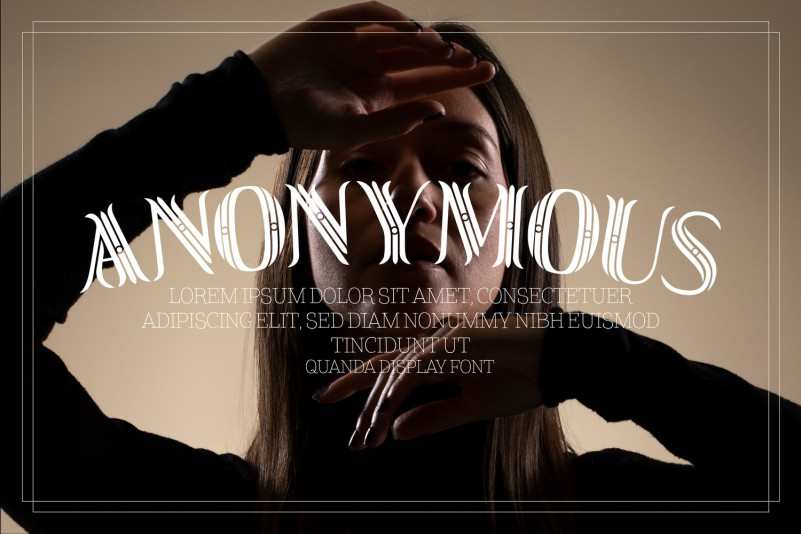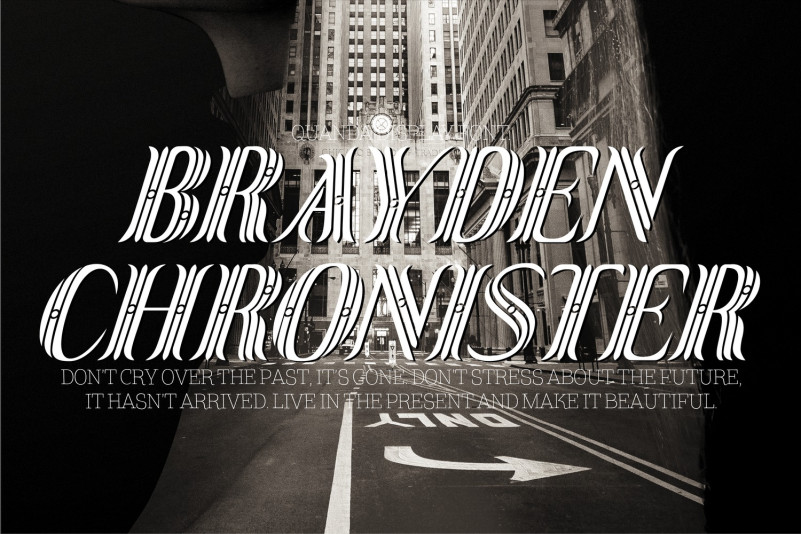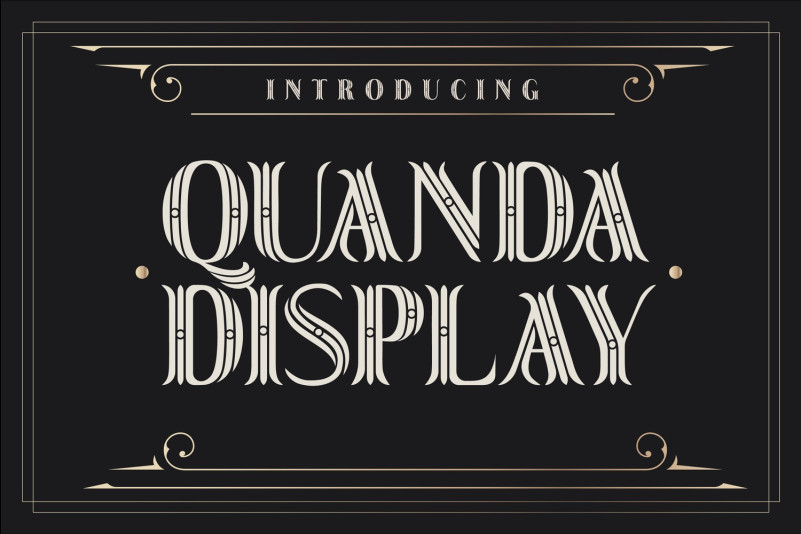
Quanda Display Font
Quanda Display Font is a unique serif decorative display font. The main keywords that characterize the art deco moment and the font are – luxury, clean lines, grandiose, elegant, modern, rich, geometric, progress and hope. Influenced by the ornamented capitals found in late nineteenth century specimens, this layered font was designed to decorate publication covers, labels, stationery or any other piece that needs to be embellished.